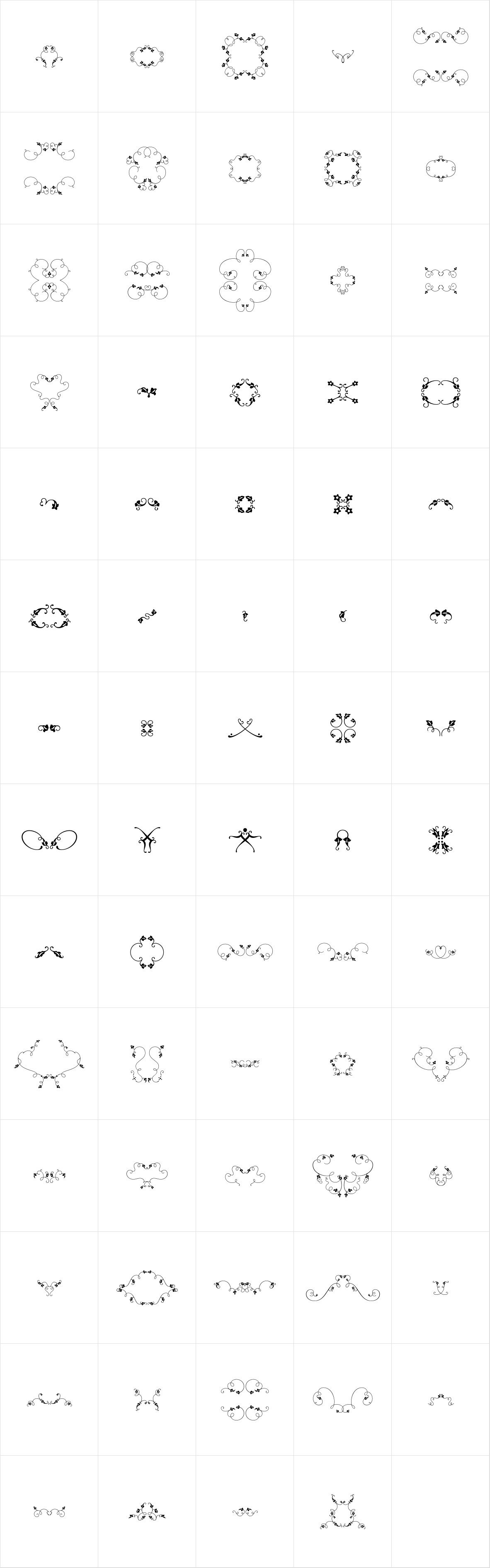
Weingut Swashes and Ornaments Font
- Weingut is a decorative display font with high contrasts, perfectly drawn to the tiniest details. The font is trimmed to fairly large font sizes and is highly suitable for chapter titles or book jackets as well as Headlines, Invitations and wine labels, although also impressing with an astounding legibility in small typesettings. Inspired by the hand drawn Blätterschrift from the 19th century Mettenleiter's Schriftenmagazin, its basic structure is related to the English Script. The creative process started in summer 2009 and after 600 hours of work, over a 2 year period, Weingut now unfolds to reveal all its charms. Designed by Georg Herold-Wildfellner.